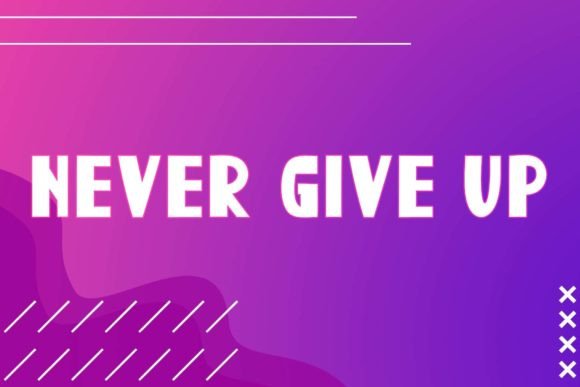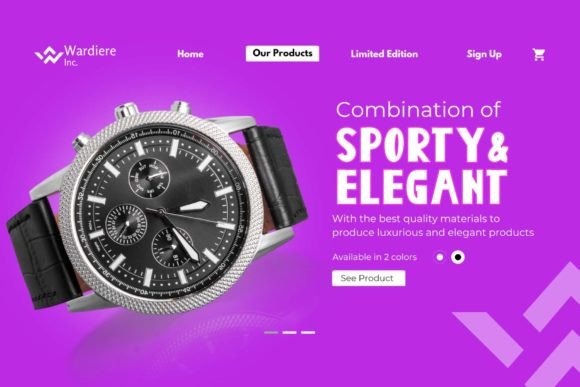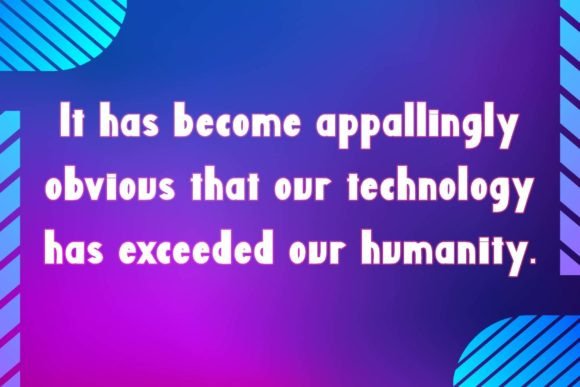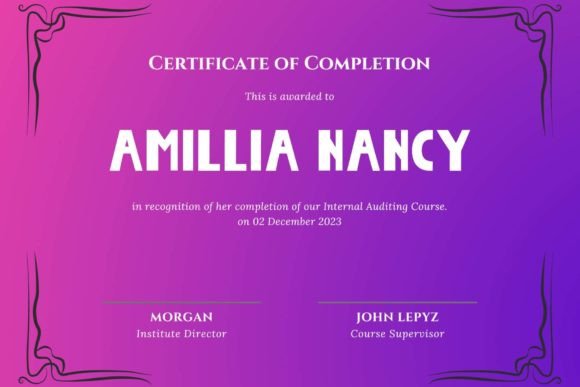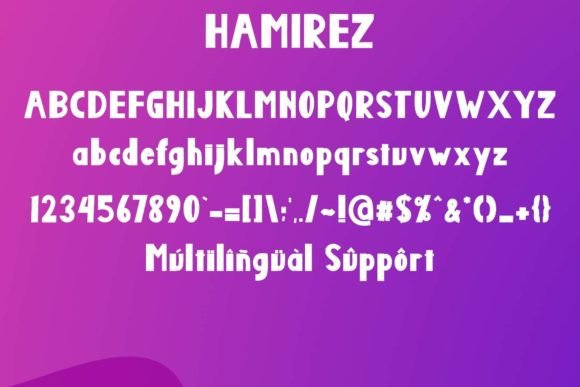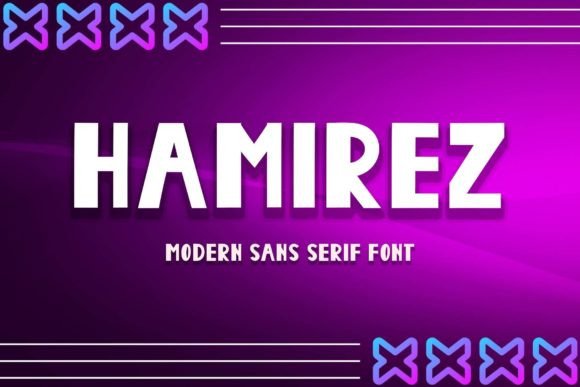
Introducing Hamirez Font: The Ultimate Sans Serif for Modern Design
In the world of typography, fonts play a crucial role in conveying messages, expressing creativity, and building brand identities. For designers and crafters, finding the perfect font can be a daunting task, especially when it comes to creating visually stunning and cohesive designs. This is where Hamirez Font comes in – a game-changing sans serif font that is unique, modern, and elegant.
What is Hamirez Font?
Hamirez Font is a sans serif font designed to cater to the needs of modern designers and crafters. Its clean lines, precise curves, and balanced proportions make it an ideal choice for a wide range of design applications. Whether you’re working on banners, branding, logos, posters, stickers, business branding, social media, or any other project, Hamirez Font is sure to impress.
Key Features of Hamirez Font
- Unique and Modern Design: Hamirez Font boasts a distinctive and contemporary design that sets it apart from other sans serif fonts. Its fresh and stylish look makes it perfect for designers who want to create bold and eye-catching designs.
- Elegant and Sophisticated: Despite its modern look, Hamirez Font exudes elegance and sophistication, making it suitable for high-end branding, luxury products, and premium services.
- Versatile and Adaptable: Hamirez Font is incredibly versatile and can be used across various design applications, from digital media to print materials.
- Easy to Read and Understand: The font’s clear and legible design ensures that your message is conveyed effectively, making it perfect for body text, headings, and titles.
Use Cases for Hamirez Font
Hamirez Font is an incredibly versatile font that can be used in a variety of design applications, including:
- Banners and Posters: Create eye-catching banners and posters with Hamirez Font’s bold and modern design.
- Branding and Logos: Establish a strong brand identity with Hamirez Font’s unique and elegant design.
- Stickers and Labels: Add a touch of modernity and sophistication to your stickers and labels with Hamirez Font.
- Business Branding: Use Hamirez Font to create a cohesive and professional brand image across all your business materials.
- Social Media: Stand out on social media with Hamirez Font’s fresh and stylish design.
Why Choose Hamirez Font?
With so many fonts available, why choose Hamirez Font? Here are a few compelling reasons:
- Unique Design: Hamirez Font’s distinctive design ensures that your designs stand out from the crowd.
- High-Quality: Hamirez Font is crafted with precision and attention to detail, ensuring a high-quality design that looks great in any context.
In conclusion, Hamirez Font is an exceptional sans serif font that is perfect for designers and crafters looking to create modern, elegant, and cohesive designs. Its unique design, versatility, and high-quality craftsmanship make it an ideal choice for a wide range of design applications. Whether you’re working on a branding project, creating social media graphics, or designing print materials, Hamirez Font is sure to impress.